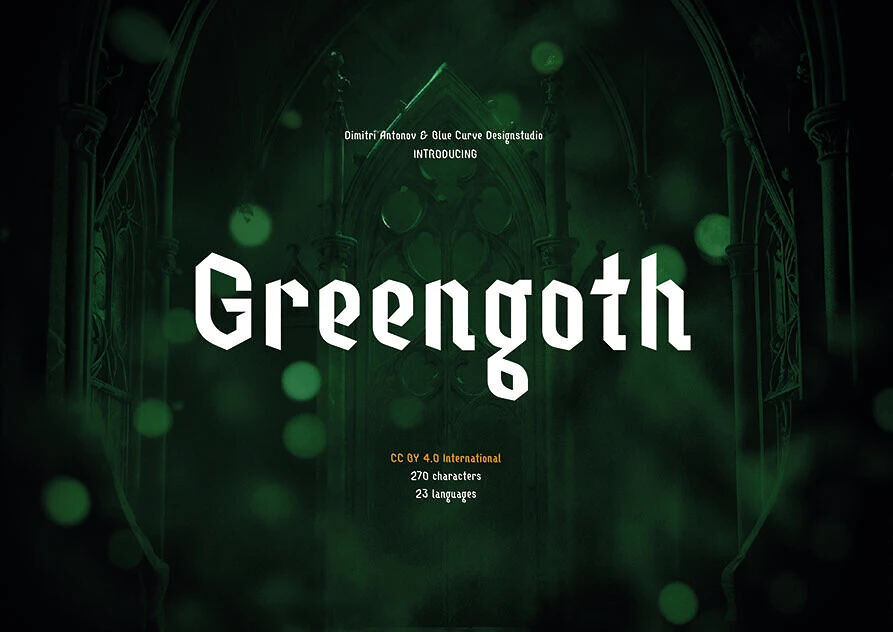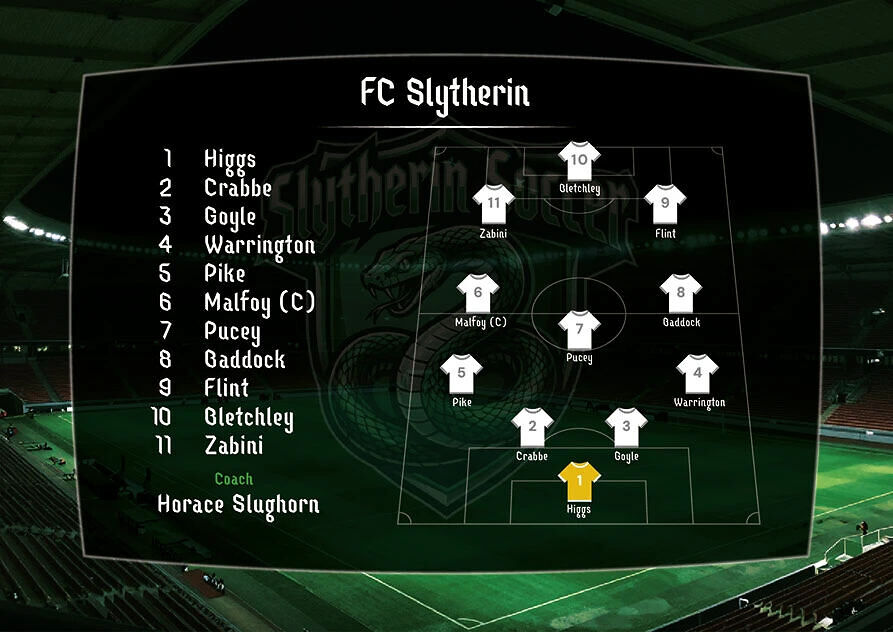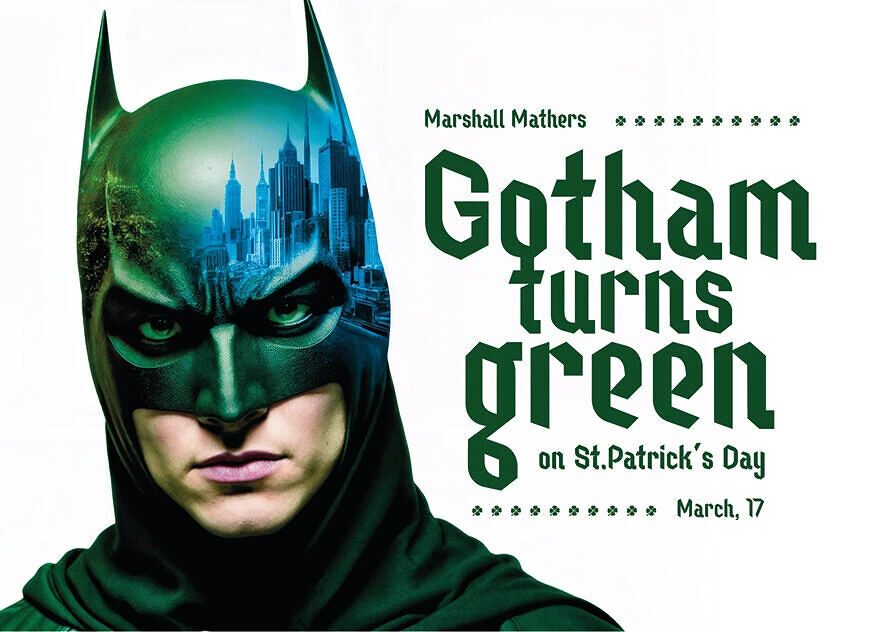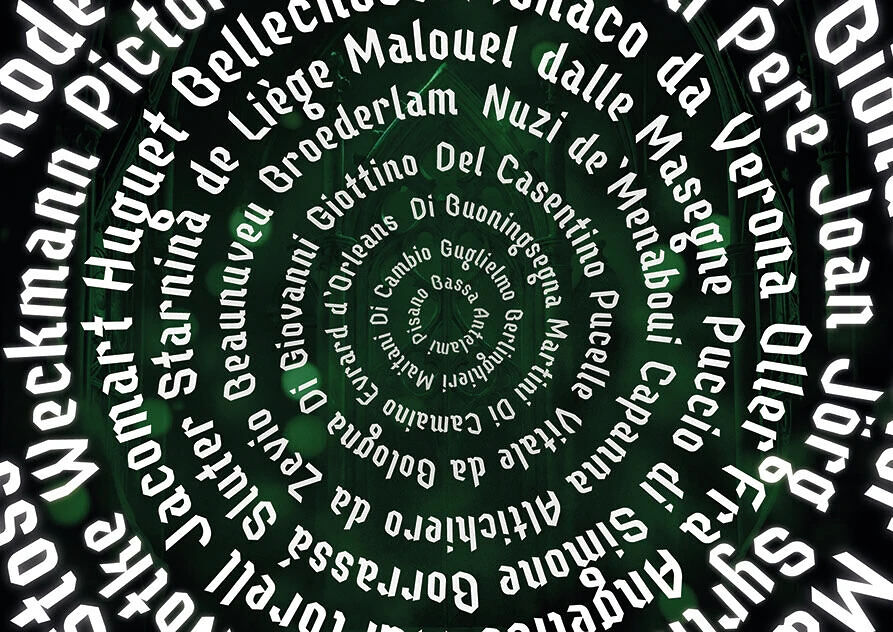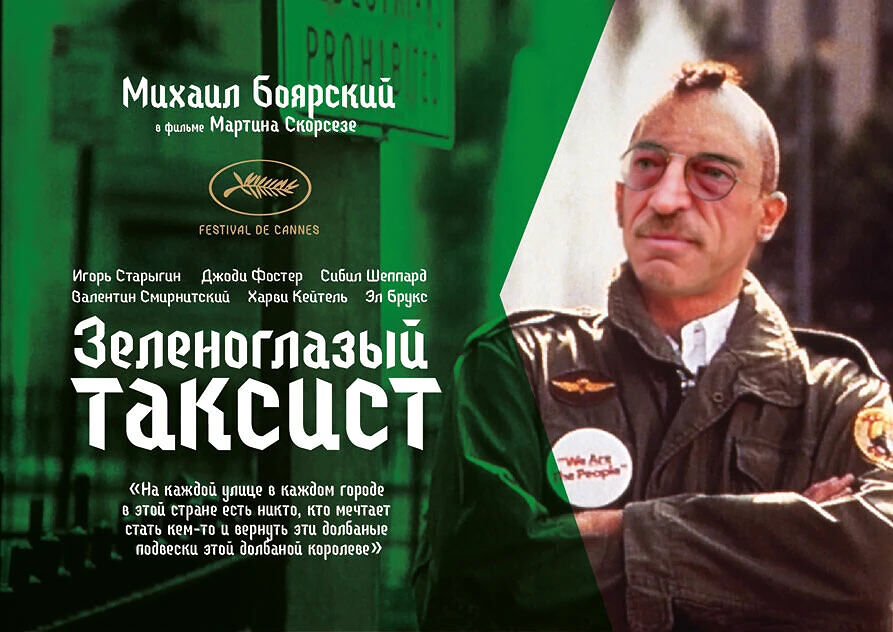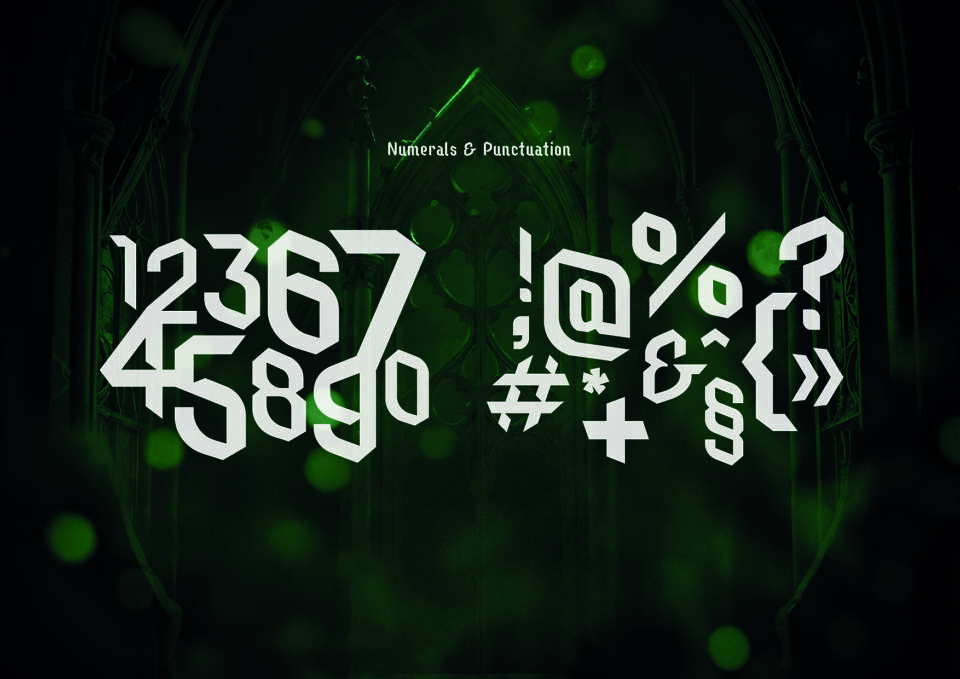
Greengoth Font
Greengoth is a bold display typeface inspired by gothic forms, blending sharp, angular strokes with modern experimental shapes. Its dramatic letterforms create a dark, edgy aesthetic, perfect for posters, branding, and creative visuals.
Designed to stand out, it captures a strong visual identity while maintaining readability in headlines and short texts, making it ideal for projects that demand a striking, unconventional typographic presence. Includes regular and expanded.